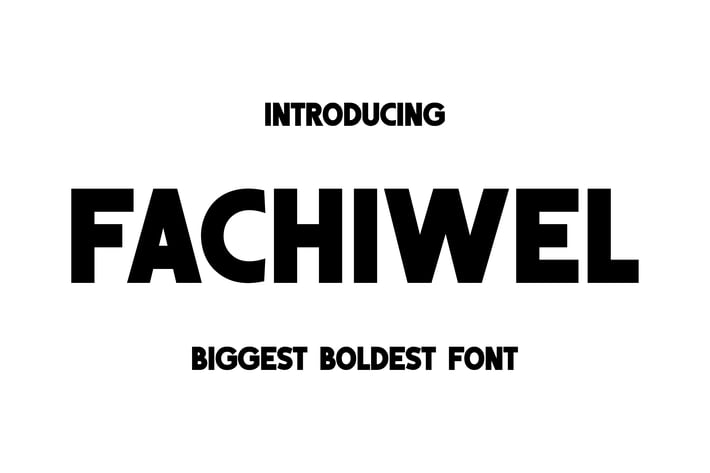
Fachiwel - Strong Bold Font
FACHIWEL is a bold, strong font in OTF and TTF formats, perfect for billboards and banners. Its clean, striking design ensures readability and grabs attention instantly!